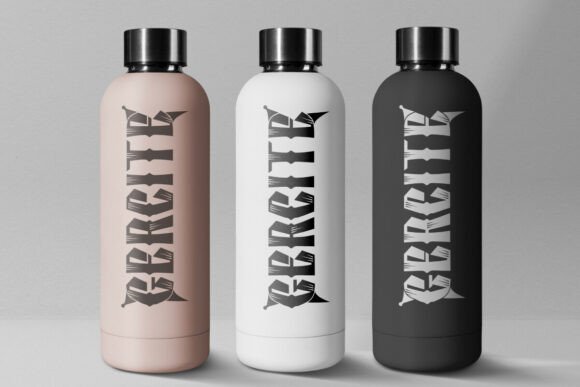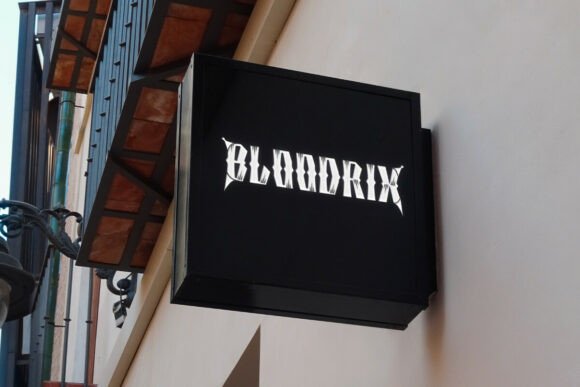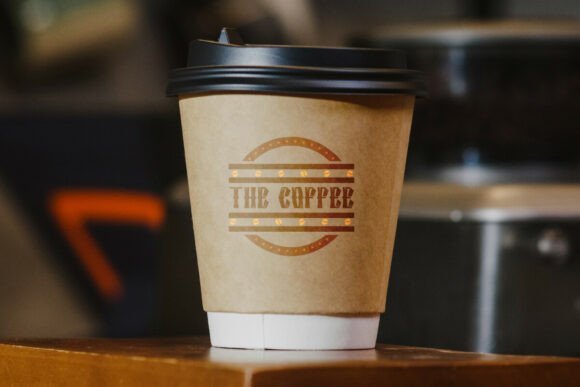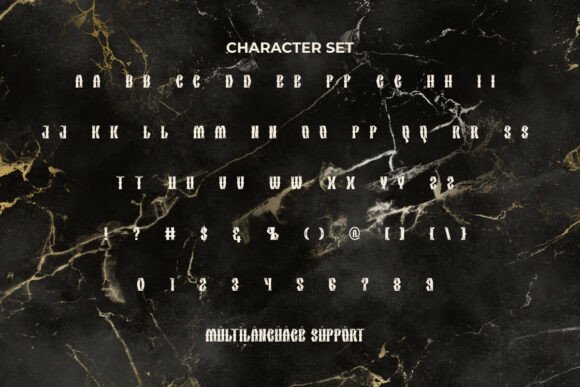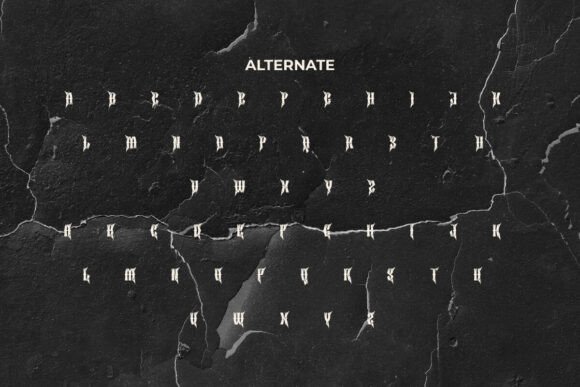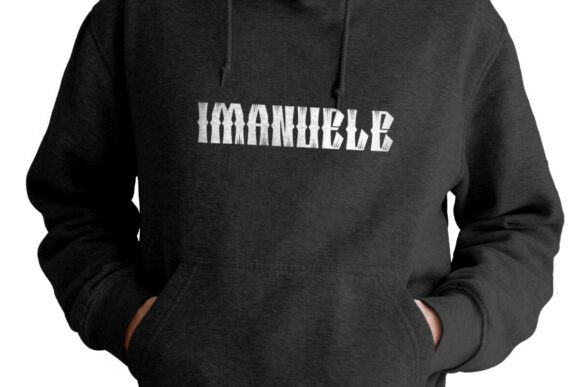
The Rush of Speed: Unleashing the Power of the Bloodrix Font
Imagine you’re standing on the edge of a racetrack, the roar of the crowd and the screech of tires filling the air. The adrenaline is pumping, and you’re ready to take on the challenge. That’s the feeling you get when you work with the Bloodrix Font, a high-octane display typeface designed to capture the essence of speed and raw power.
Developed by NoahType, the Bloodrix Font is more than just a set of characters – it’s a visual statement of performance and aggression. With its sharp-edged serifs and unique vertical accents, this font is perfect for designers who want to make a statement. Whether you’re creating a poster for a professional racing team or designing a high-intensity energy drink, the Bloodrix Font delivers an unmistakable impact.
As a designer, you know that the right font can make all the difference in your project. That’s why the Bloodrix Font is a valuable tool in your arsenal, excelling in large-scale applications like automotive liveries, event posters, and gaming interfaces.
Bloodrix Font Key Features
• Unique Characteristics: Bloodrix Font features a unique blend of gothic and script elements, with intricate details and flourishes that add a touch of elegance and sophistication.
Bloodrix Font Review
Overall, I’d say the Bloodrix font is a unique and eye-catching addition to any design project. It’s perfect for those who want to add a touch of edginess to their work.
• Distinctive style: Bloodrix has a bold, gothic aesthetic that’s sure to grab attention.
• Wide range of uses: It’s versatile enough to be used in various contexts, from headings to titles.
• Sharp, crisp lines: The font’s bold lines give it a clean, modern look.
• Readability issues: The font can be difficult to read at smaller sizes, which may limit its use in body text.
• Lack of subtlety: Bloodrix can be overwhelming if overused, so it’s essential to use it sparingly.
• Not suitable for all audiences: The font’s edgy style may not be suitable for all projects, especially those targeting younger or more conservative audiences.
Overall, I’d give the Bloodrix font 4 out of 5 stars. It’s a great choice for designers looking to add some edge to their work, but it’s essential to use it thoughtfully to avoid overwhelming the viewer.
Tips for Getting the Most Out of Bloodrix Font
Use Bloodrix Font for titles, headings, and emphasis.
Pair Bloodrix Font with other bold fonts for a striking contrast.
Headlines and titles in marketing materials.
Emphasis in social media posts and blog articles.
Branding and logo design.
Alternatives to Bloodrix Font
Bloodrix Font is a unique and stylish font, but it may not be suitable for all design projects. Here are some alternatives that designers can consider:
Font1: “Pacifico”
Pacifico is a beautiful and elegant script font that is perfect for creating a sense of luxury and sophistication. It is ideal for use in branding, advertising, and editorial design. Compared to Bloodrix Font, Pacifico has a more refined and polished look, making it suitable for high-end design projects.
Font2: “Great Vibes”
Great Vibes is a fun and energetic script font that is great for creating a lively and playful atmosphere. It is perfect for use in social media, blog posts, and other online content. Compared to Bloodrix Font, Great Vibes has a more casual and relaxed feel, making it suitable for design projects that require a more laid-back tone.
Font3: “Alex Brush”
Alex Brush is a elegant and refined script font that is perfect for creating a sense of sophistication and elegance. It is ideal for use in branding, packaging, and editorial design. Compared to Bloodrix Font, Alex Brush has a more classic and timeless look, making it suitable for design projects that require a sense of tradition and heritage.